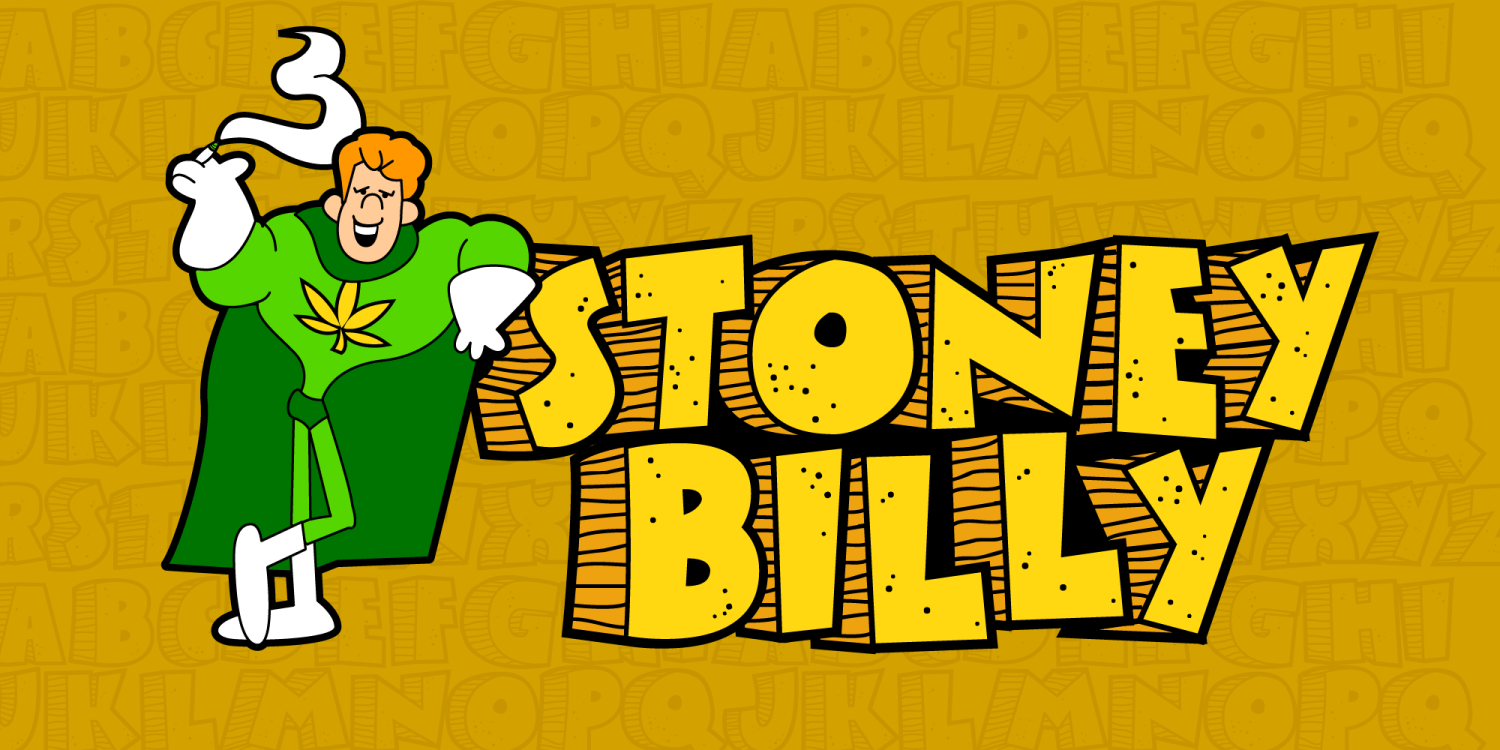
Stoney Billy
A lot of people write to me and say, "You totally smoke weed, don't you?" I guess some think the fonts I create are too crazy to come from a sober mind. But alas, it is true, I have never smoked the doobage. Stoney Billy has though. All that kid does is smoke weed and eat Cookie Crisp cereal. A lot of people think I am a slacker just like Stoney Billy, because I haven't made any new fonts in 2 months. Well, hey, here's one right here. Its an updated version of the oldie, Caveman. I've also got a couple more on the back burner that I will put up after I get my snack on, play hackey sack and take a nap on the couch.